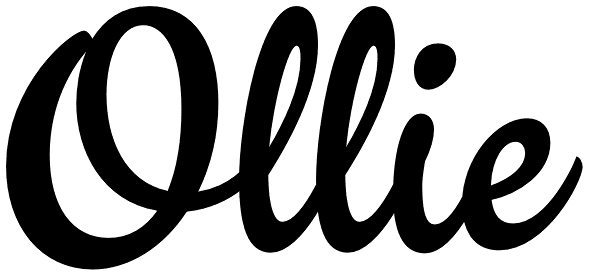
Ollie
Meet Ollie, a casual signage script whose friendly, bouncy exterior belies a heart of sophisticated OpenType programming. This font is designed to make the most of OpenType savvy applications, and as such is recommended for professional design use...